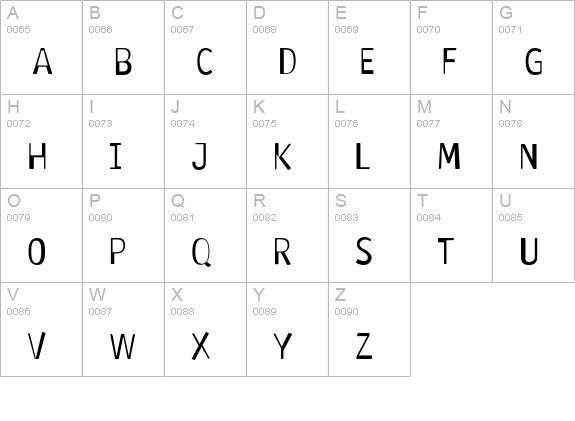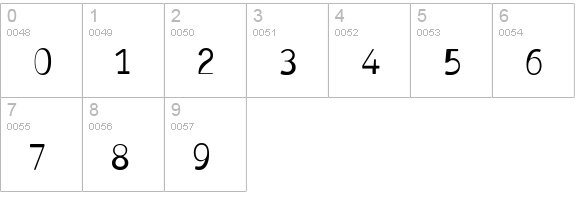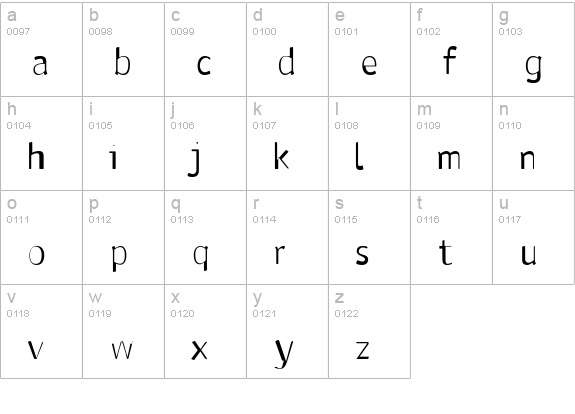
Antaviana Normal Font Details
Antaviana Normal is the standard, neutral variant in the Antaviana typeface family \xE2\x80\x94 well suited to general body text, paragraphs, and standard typographic work.
Antaviana Normal font is a charming and elegant typeface that exudes sophistication and style. With its clean lines and timeless appeal, this font is perfect for a wide range of design projects, from branding to invitations to editorial layouts. The classic yet modern design of Antaviana Normal makes it a versatile choice for any creative endeavor. What's even better is that Antaviana Normal font is available for free download at FontsMarket.com. This means you can easily access this beautiful font and incorporate it into your designs without any hassle. Don't miss out on the opportunity to enhance your projects with the timeless beauty of Antaviana Normal font - download it for free today!